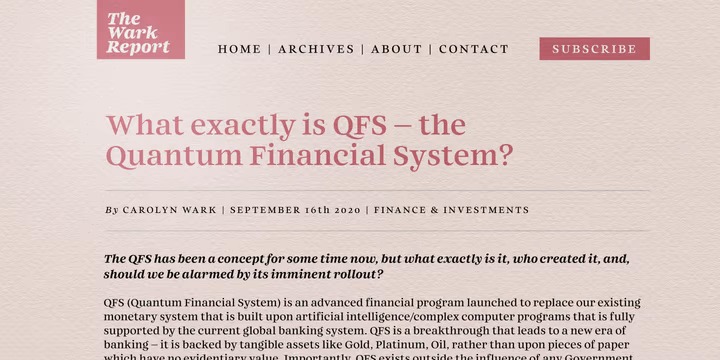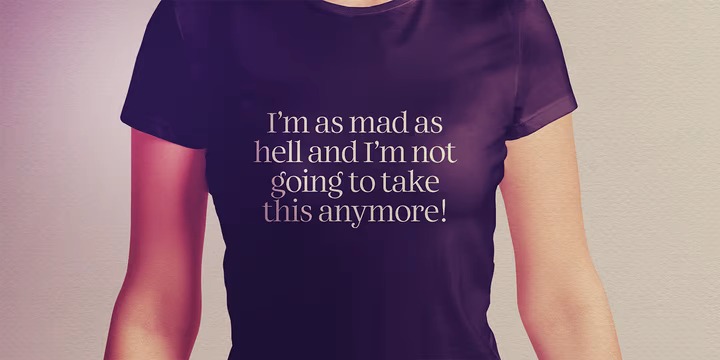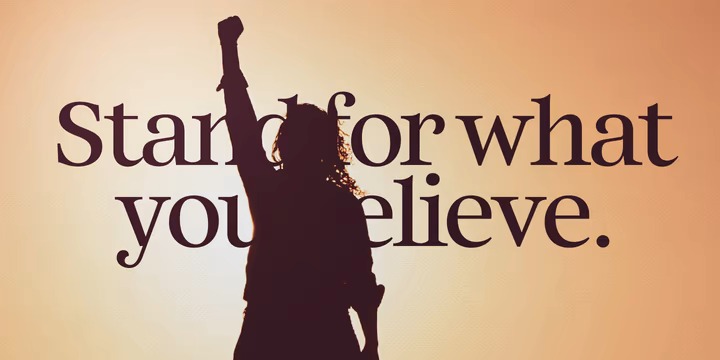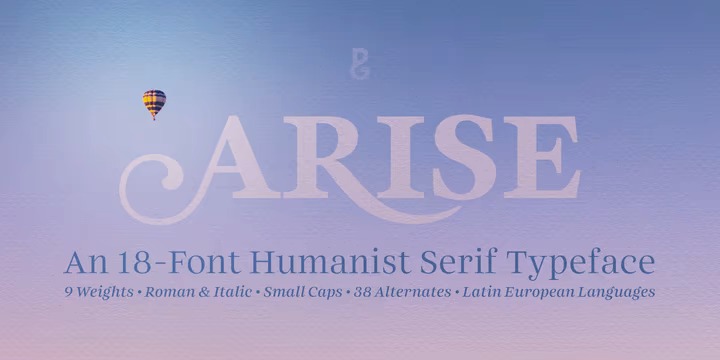
Arise Font
Arise Serif Font
This is a family of fonts inspired in on one of the most beautiful British Typography ever done. Its an understated type family with enough subtle nuances and personality to add distinction to your own typographic compositions.
As can be seen in the /a/c/f/g/r/y/ glyphs, hooked terminals are a key feature of this typeface. These terminals are blade-like in appearance, defining a distinctive character that is unusual, yet balanced and refined.
Practical features include 38 capital swash alternates for intial and final forms that can be particularly effective when used in titling and branding situations. Small caps are also included (along with matching diacritics) – these are designed to harmonise with regular lowercase forms so that you may easily achieve unicase-style typography.
There are 18 fonts altogether, with 9 weights from ExtraLight to Ultra in both roman and italic. Arise has an extensive character set that covers all Latin European languages.